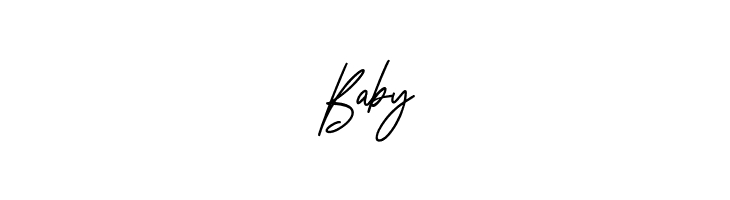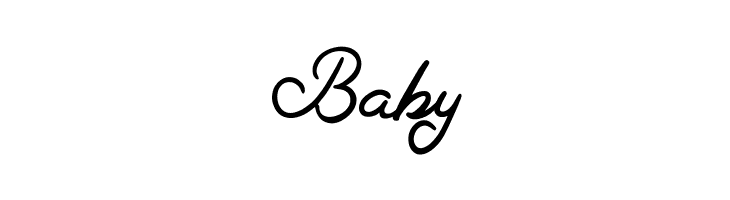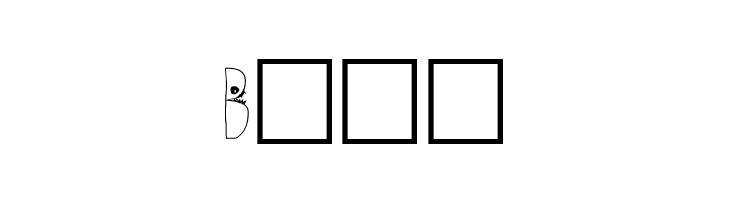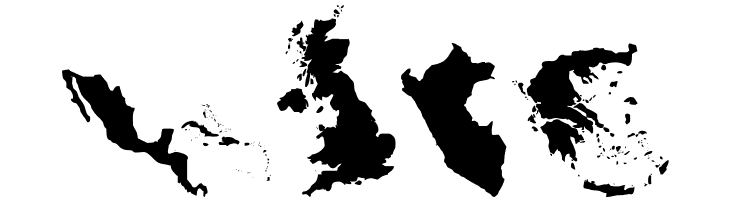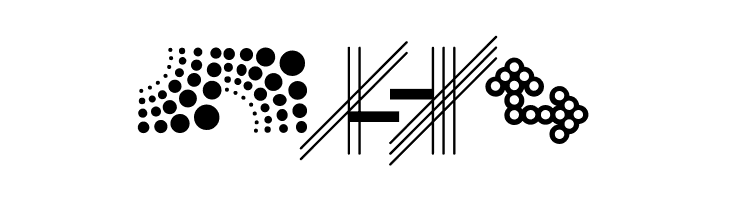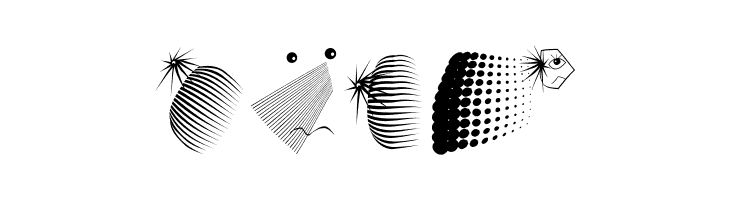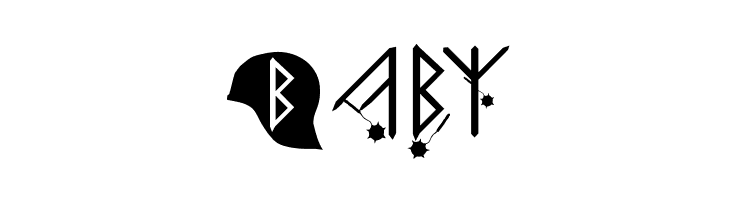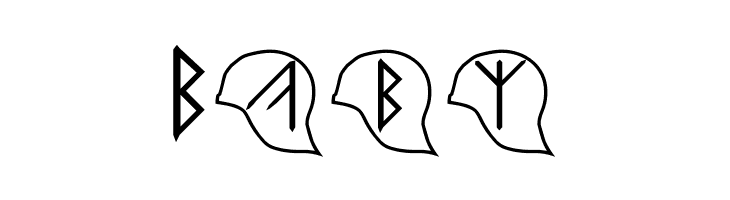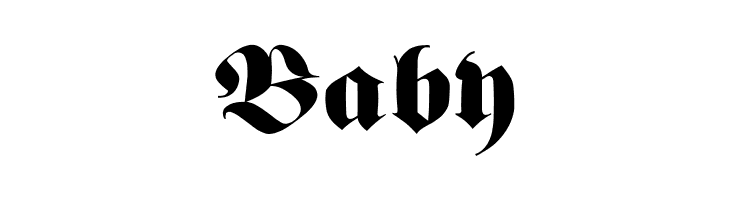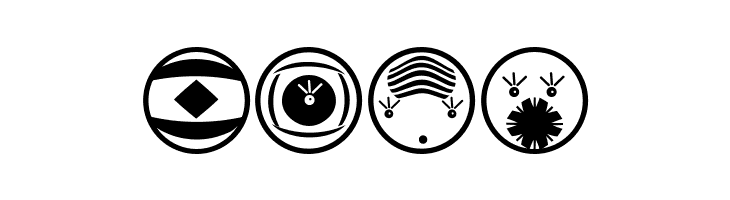
A bold, outlined serif font with a classic and decorative style.
A bold, outlined, italic font with a dynamic and energetic style.
A bold, italicized font with sharp, angular lines and high contrast.
A bold, vintage-style font with strong, blocky characters.
A delicate, flowing script font with elegant, elongated letterforms.
Geographical shapes resembling country outlines.
An abstract, geometric design with dots and lines forming letter-like patterns.
A bold, playful font with rounded edges and a whimsical, hand-drawn style.
A pictogram-based decorative display font with abstract, playful icons for each character.
Decorative geometric icon font with abstract faces in bold circles.
A geometric, modern font with clean lines and a minimalist aesthetic.
Abstract geometric font using line patterns and filled shapes.
A decorative font with geometric shapes and abstract faces inside each character.
A playful collection of abstract geometric shapes with unique textures and forms.
Abstract geometric glyphs with clean lines and symmetrical designs.
Abstract geometric font with unique, decorative symbols.
Abstract geometric and illustrative display font with intricate linework.
A decorative and abstract collection of geometric and artistic symbols.
An elegant script font with flowing, cursive letters and high contrast strokes.
A modern geometric sans-serif font with a clean and balanced design.
A clean and elegant font with smooth curves and balanced structure.
A lively, fluid script font with a handwritten appearance and dynamic flow.
A bold, ornate Blackletter font with intricate, angular letterforms.
A bold, shadowed blackletter-style font with intricate details and a three-dimensional effect.
An ornate Blackletter font with intricate detailing and a medieval aesthetic.
A bold, angular font inspired by runic alphabets with a modern twist.
A bold, geometric font with angular and futuristic design elements.
A playful, monster-themed decorative font with cartoonish eyes and teeth.
A quirky, illustrated display font composed of unique cartoon drawings.
A bold serif font with a modern yet classic appeal, featuring thick strokes and slightly condensed forms.
A bold, oblique font with a dynamic and modern style.
A refined, high-contrast serif font with elegant, slender characters.
An elegant, light, and slightly oblique font with medium contrast.